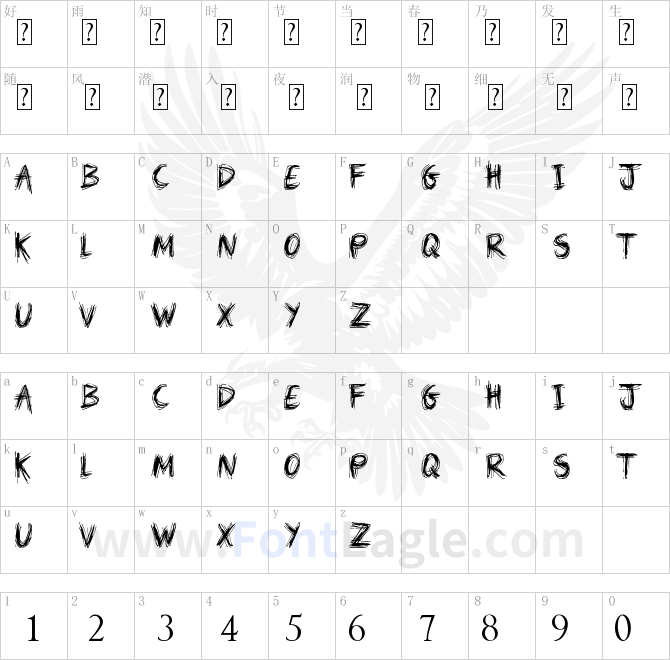
- Font name:Forbidden Land
- Font Subfamily ID:Forbidden Land:Version 1.00
- Font Full Name:Forbidden Land
- Font Version:Version 1.00 December 29, 2012, initial release
- Postscript:ForbiddenLand